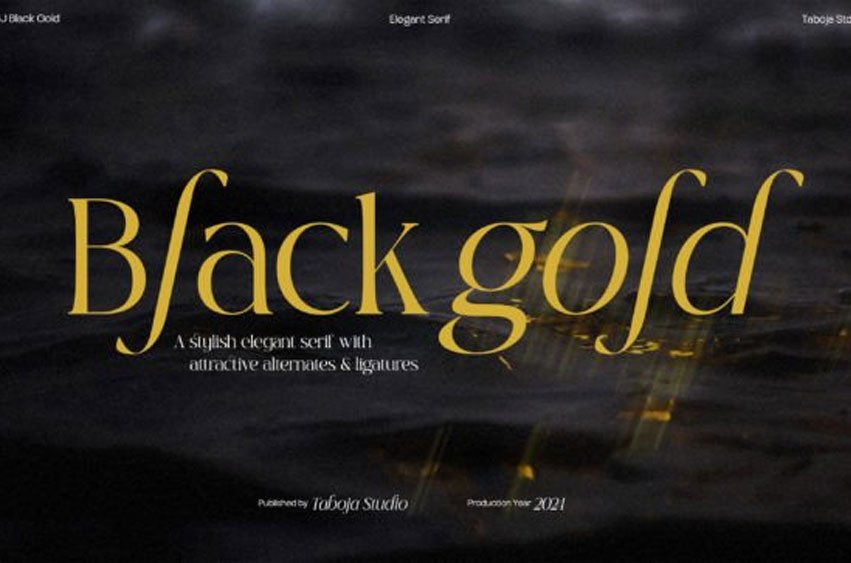
Black Gold Serif Font: Elevate your design projects with Black Gold, a versatile serif font family that exudes elegance and sophistication.
Perfectly crafted for modern typography needs, Black Gold is ideal for branding, editorial design, and more.